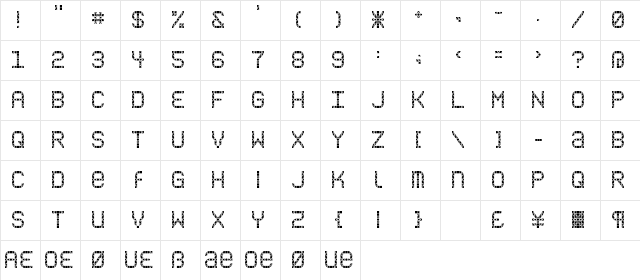
Close CallAM Free Font
Close CallAM
Style: CallAM
Close Family
Design Context for Close
Close is a composed and adaptable typeface that performs quietly and consistently across a wide range of design contexts.